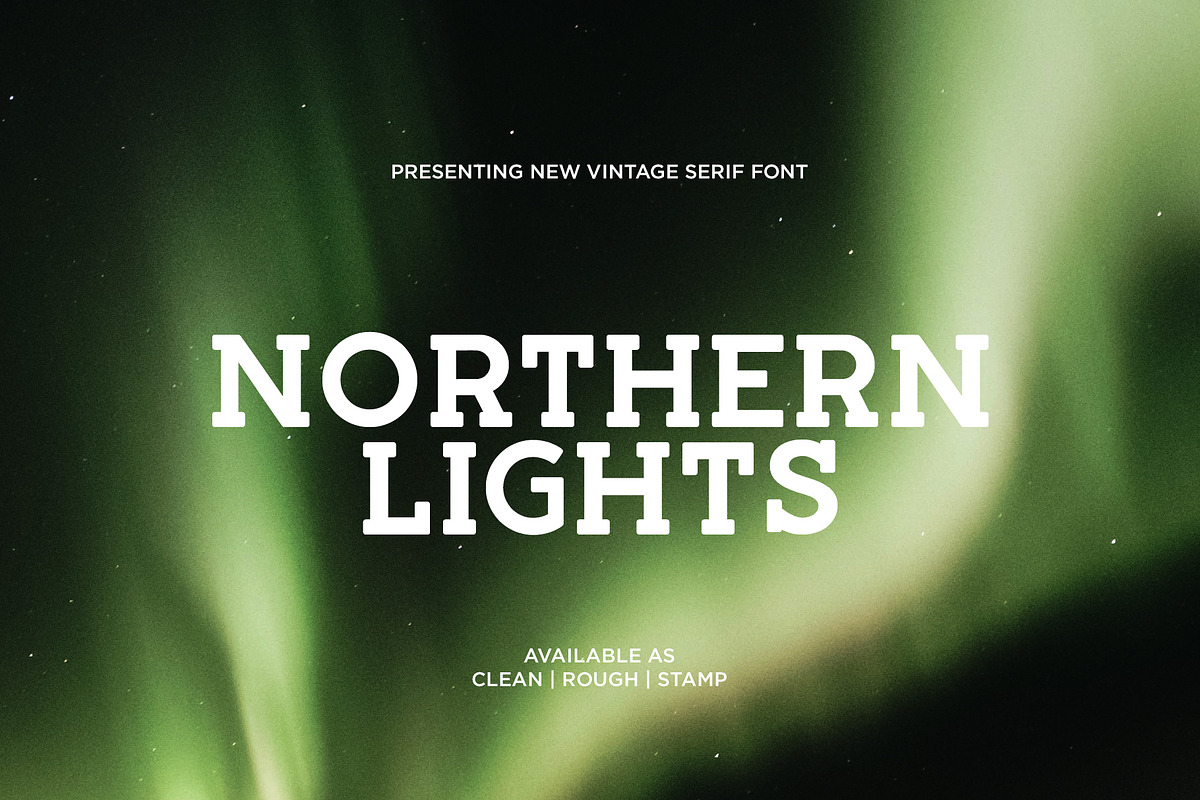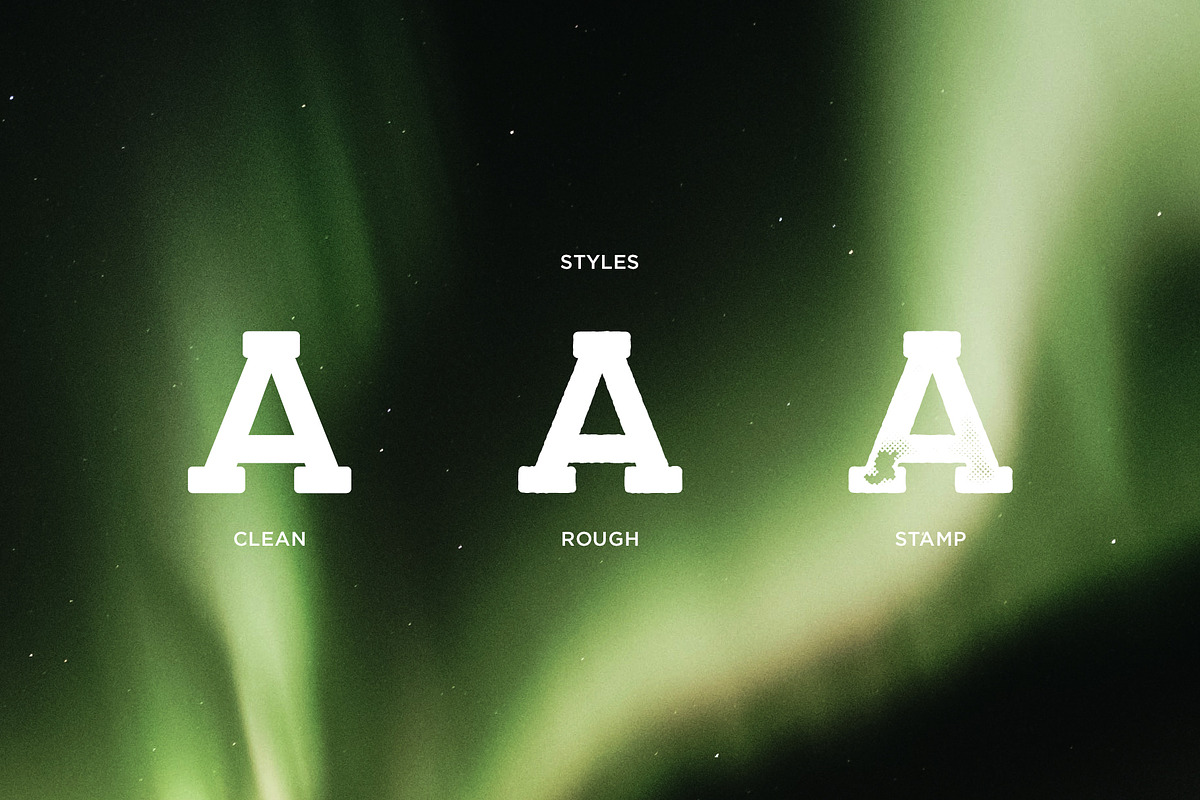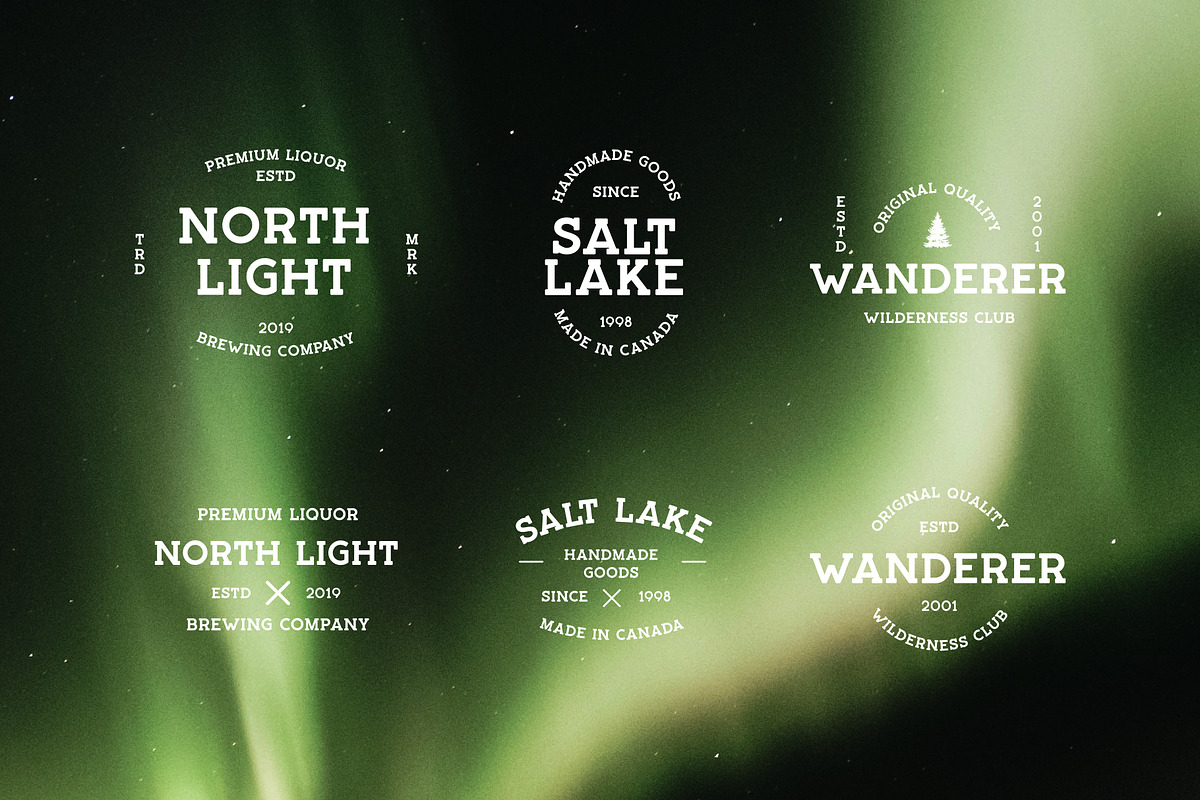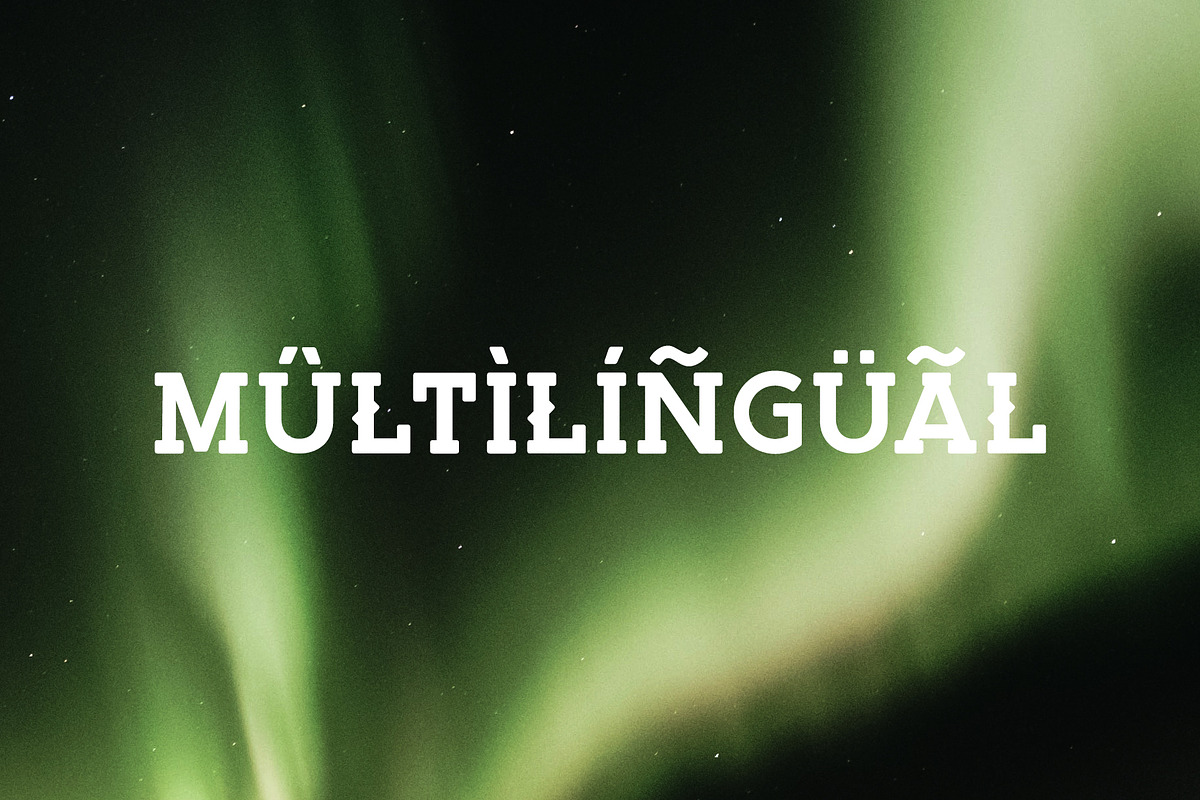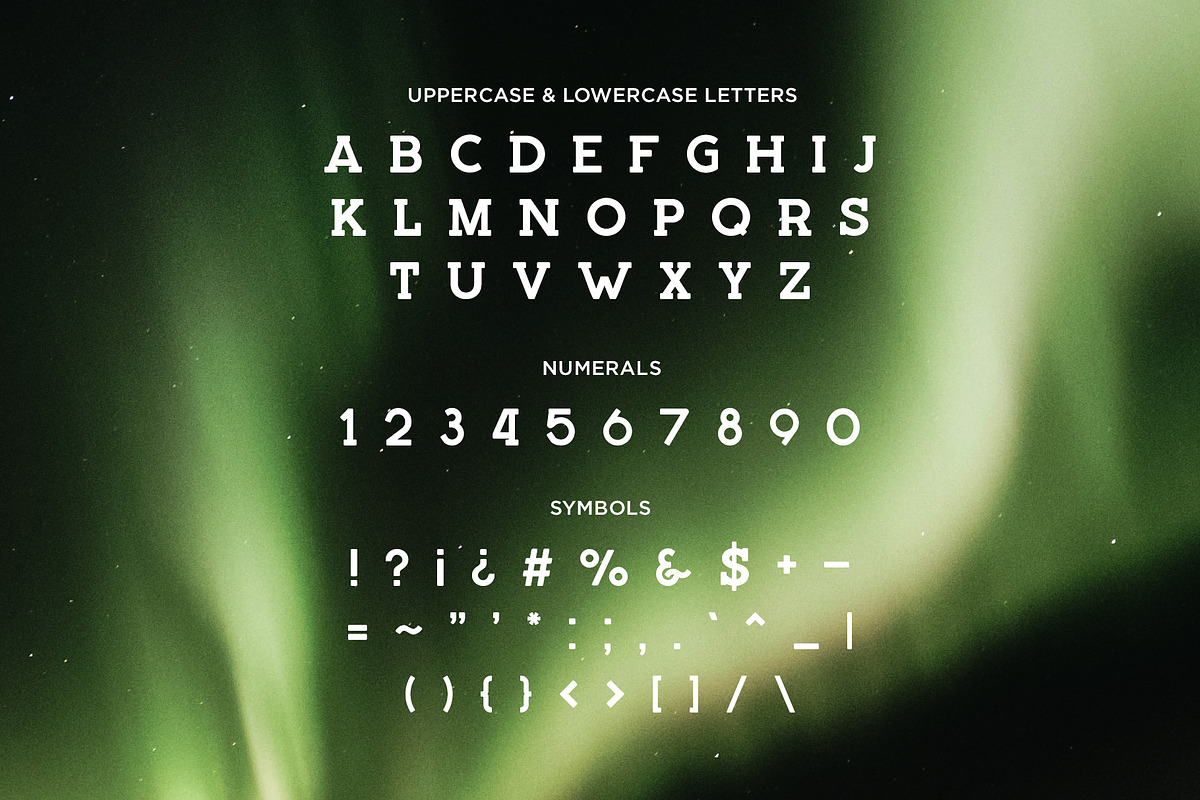
Northern Lights Font
Northern Lights is a font that combines two styles of vintage style and slab serif style into one beautiful font. With this font you can design your own logos, insignias, badges, etc.
3 Versions: Regular, Rough, Stamp
Symbols & Punctuation